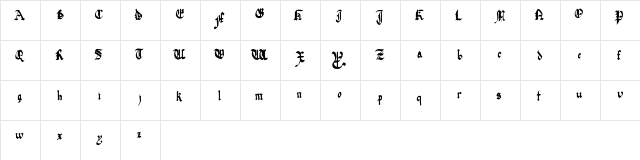
quadrata preciosa Medium
quadrata preciosa is a composed and adaptable typeface that performs quietly and consistently across a wide range of design contexts.